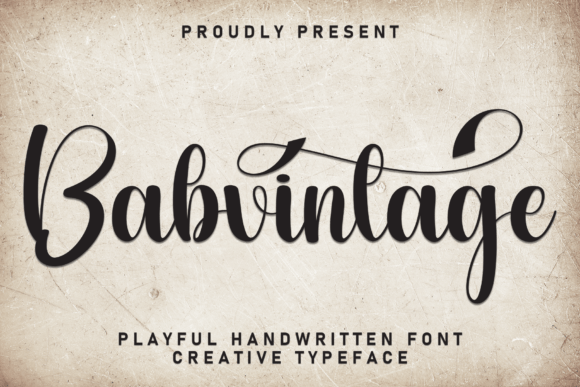
Introduction to Babvintage Font
Unleash a whimsical charm into your artistic endeavors with ‘Sweet Harmony’, a hand-drawn display font that thrives on a friendly and welcoming aura.
The adorable liveliness of ‘Sweet Harmony’ makes it perfect for designing wedding invitations, greeting cards or any artistry that begs for a dash of gladness Imbue your creative space with a font meticulously designed to infuse a delightful and fun twist to all your artistic projects, channeling the lighthearted spirit of ‘Sweet Harmony’ into every stroke.
Babvintage Font offers exceptional quality and versatility, making it a valuable addition to your design toolkit. Whether you’re creating for personal projects or commercial use, Babvintage Font delivers professional results.